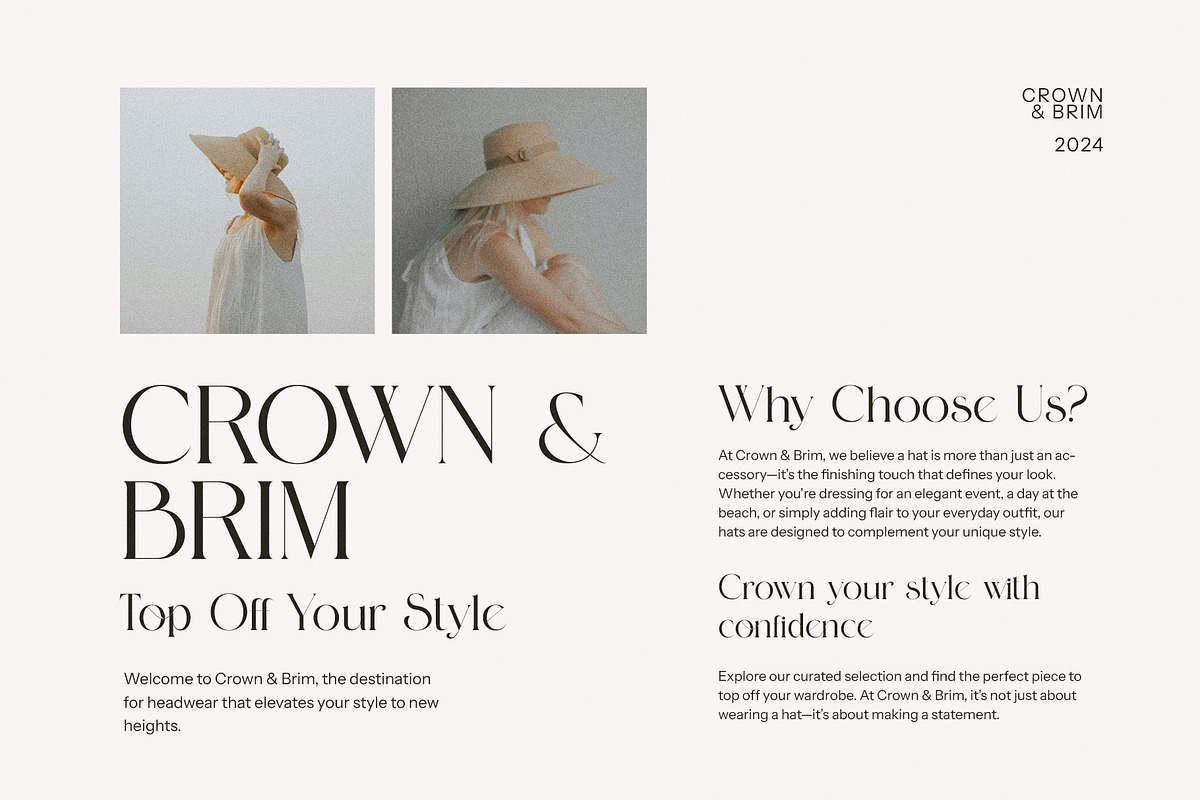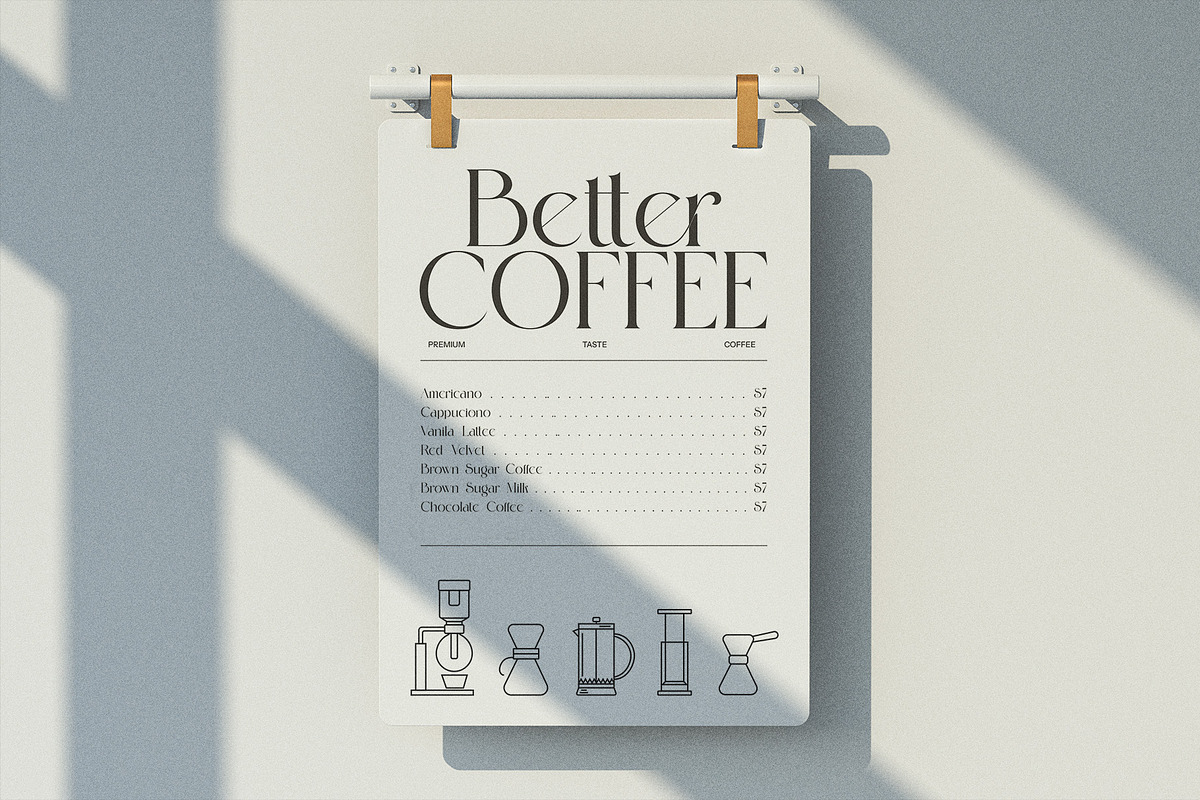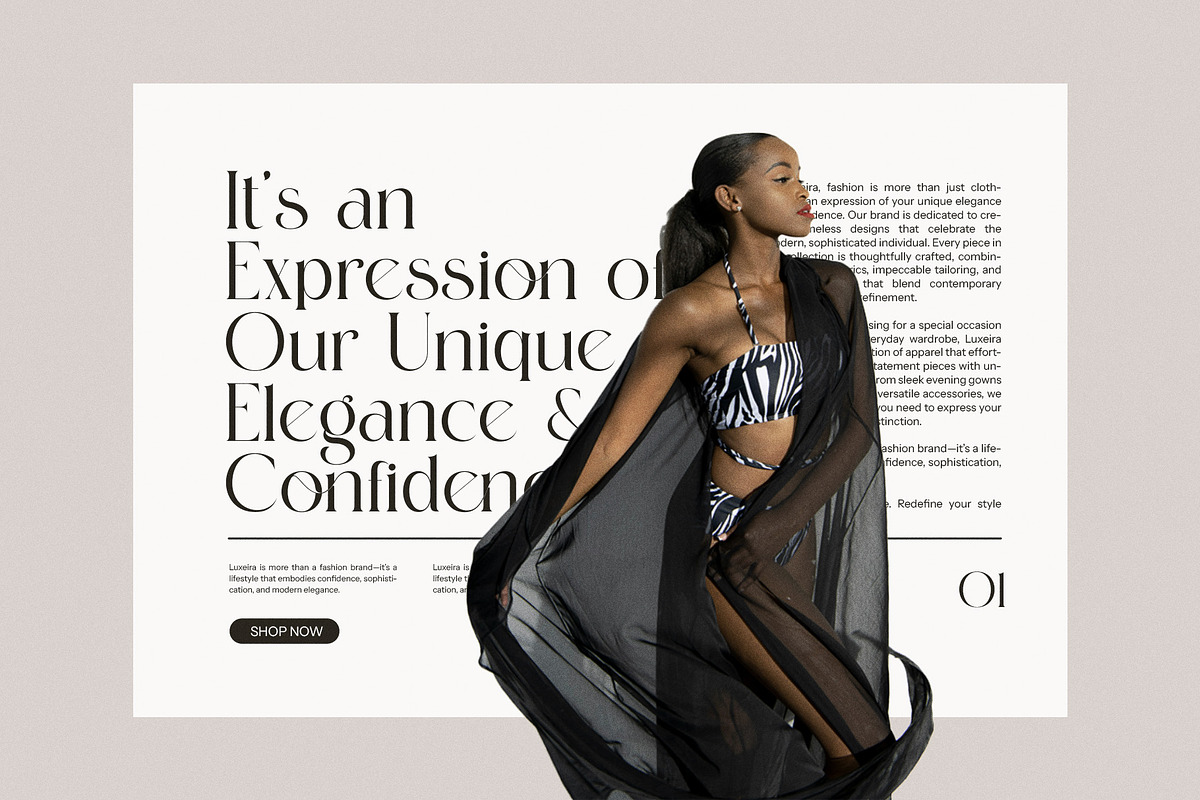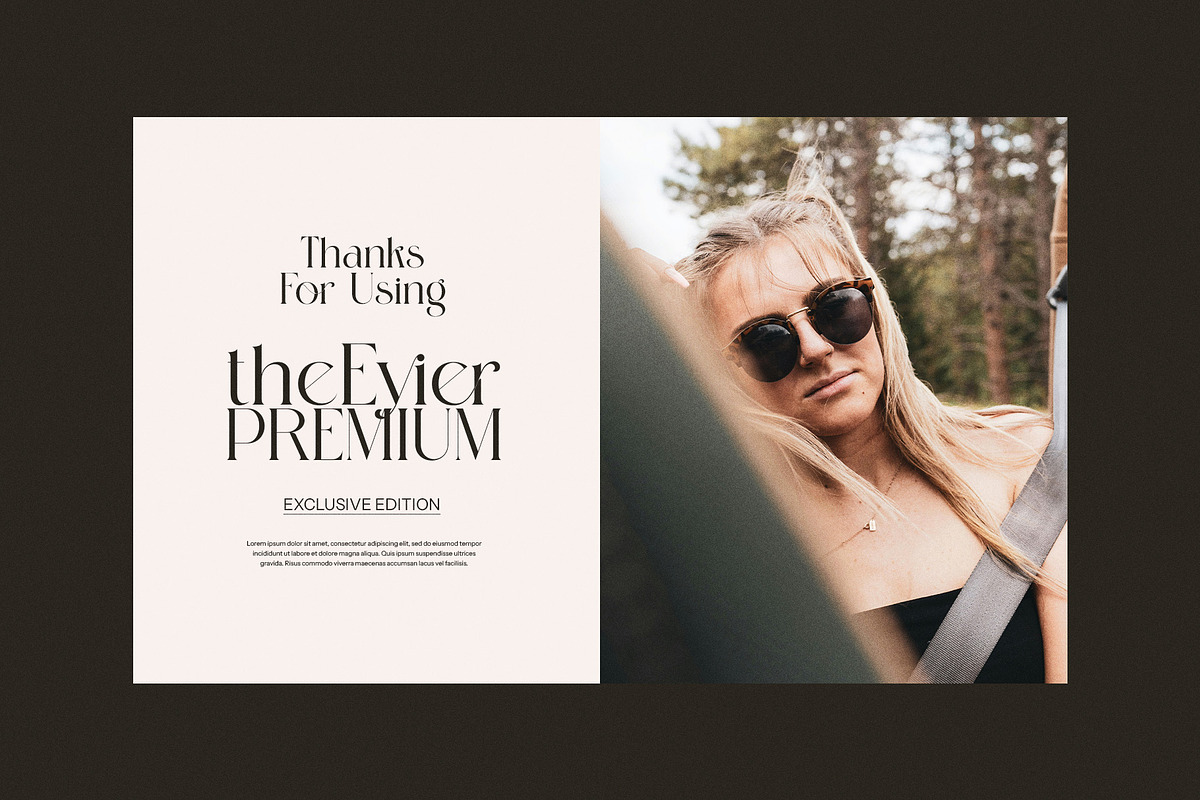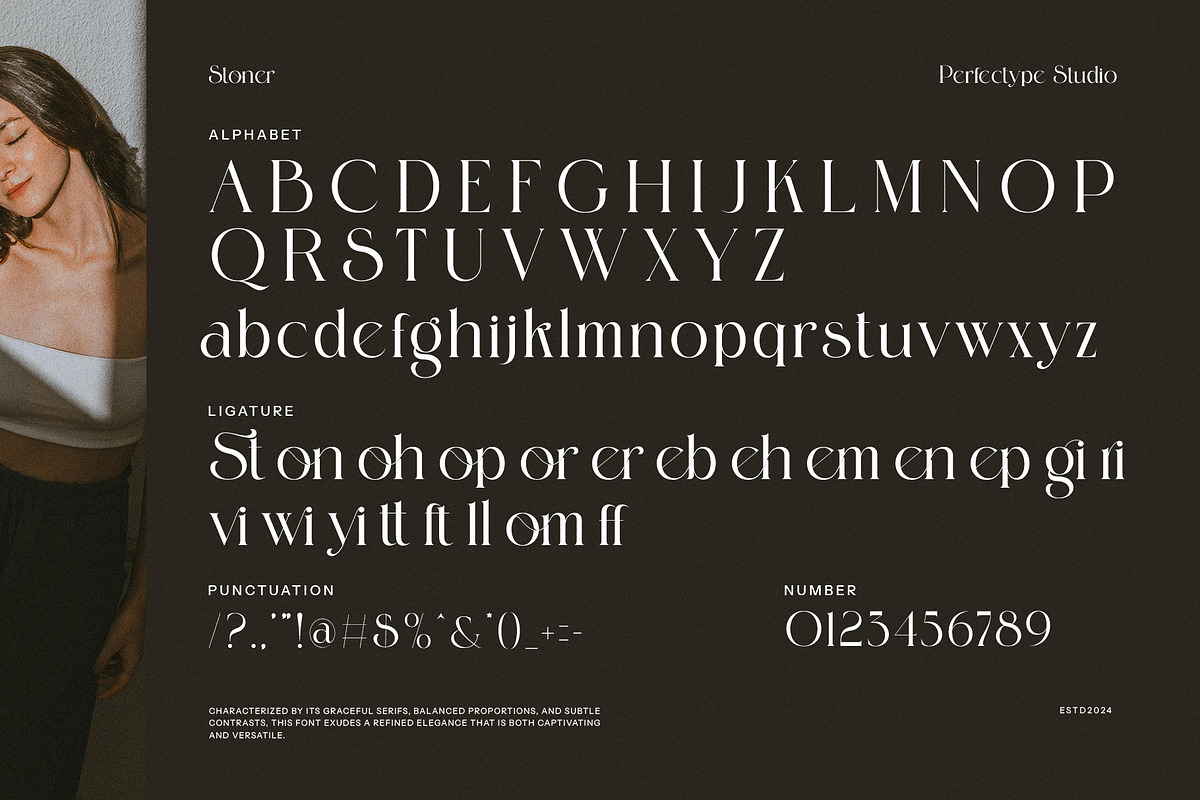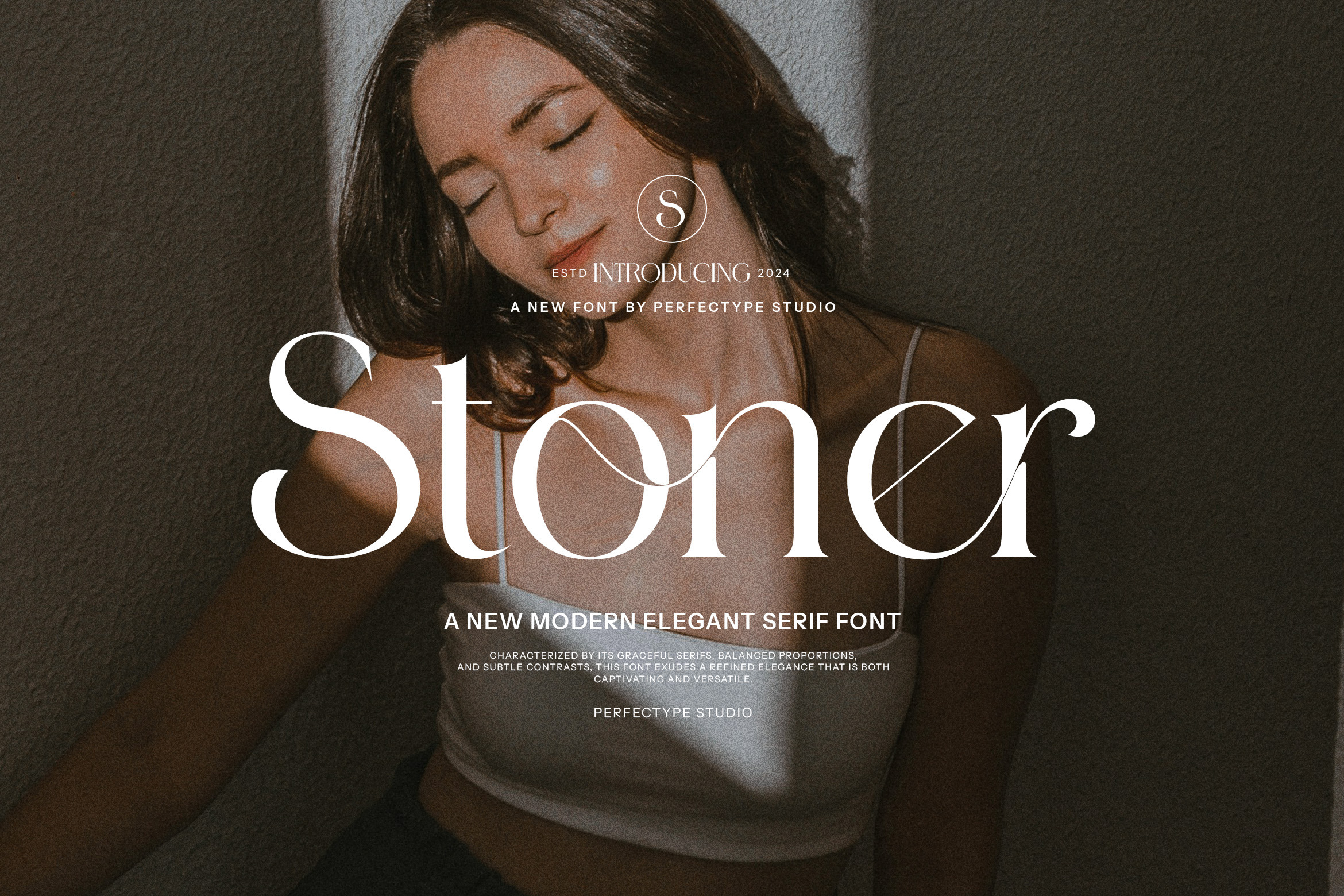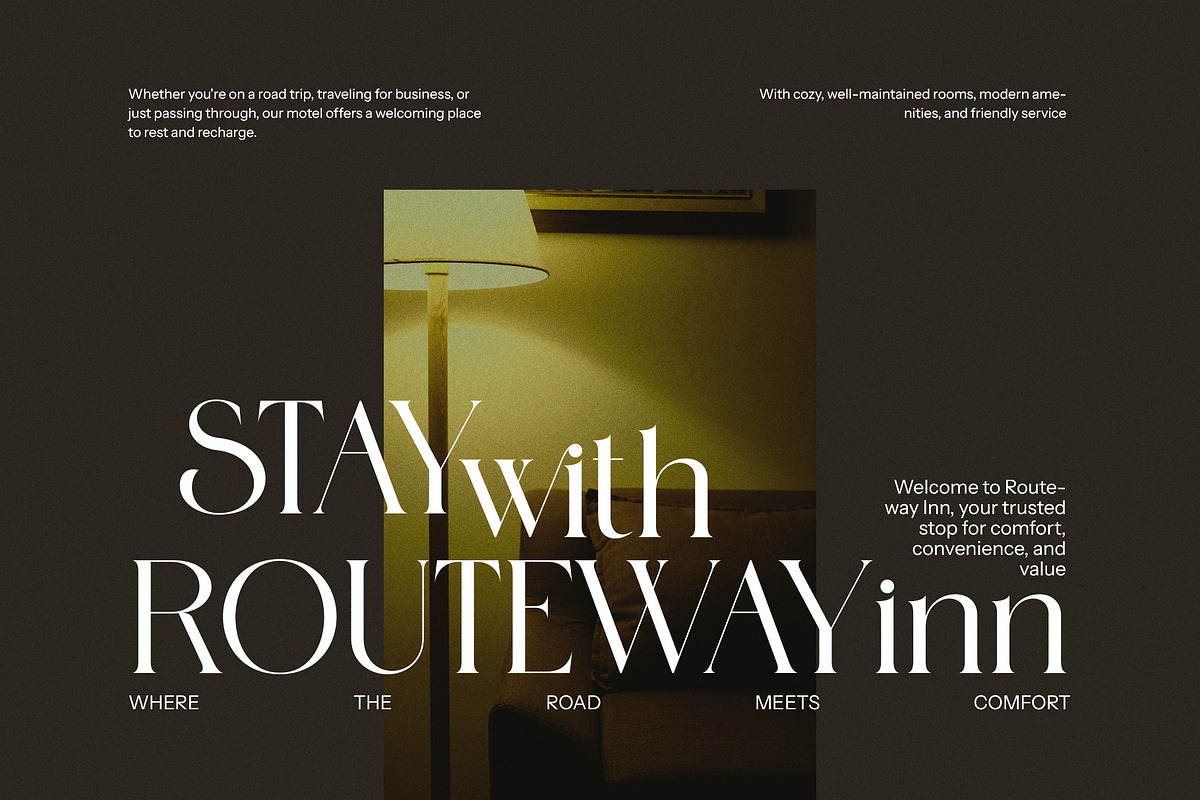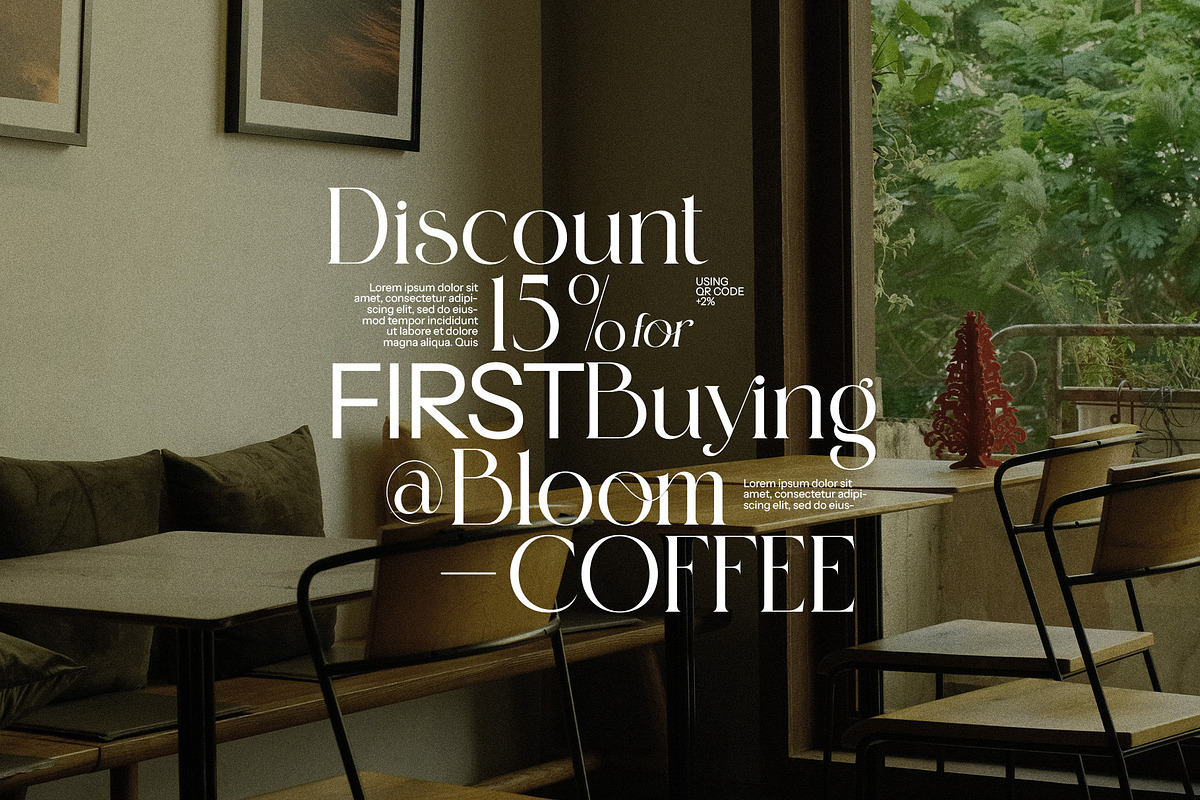
Stoner Modern Serif Font
Introducing Stoner Modern Serif Font—a captivating typeface that embodies the perfect fusion of elegance and contemporary design. With its refined serif details and clean lines, Stoner is tailored for those who appreciate sophistication without sacrificing modernity. Each character is meticulously crafted, showcasing a balance between traditional serif influences and a fresh, innovative style that breathes new life into typography.
At the heart of Stoner’s charm lies its stunning ligature feature. These thoughtfully designed ligatures create seamless connections between letters, transforming standard text into a fluid, artistic expression. This unique characteristic not only enhances visual appeal but also adds a touch of refinement, ensuring that your typography is as engaging as it is readable. Stoner invites you to explore creative possibilities, allowing for a harmonious flow that captivates audiences and elevates your design projects.
Versatility is one of Stoner’s standout qualities. It excels across a wide range of applications, making it an ideal choice for logo creation, branding endeavors, magazine layouts, product packaging, and eye-catching advertising. Whether you’re crafting a sleek and modern brand identity or designing a sophisticated editorial spread, Stoner adapts effortlessly to your creative vision. Its elegant serifs convey a sense of professionalism, while the modern elements keep it relevant and striking, ensuring your work resonates with contemporary audiences.
Beyond its aesthetic qualities, Stoner is designed for practicality. Its clear, legible characters maintain their impact at various sizes, making it suitable for both bold headlines and detailed body text. This ensures that your message is communicated effectively, whether in print or on digital platforms. The font’s comprehensive character set further enhances its usability, accommodating multilingual projects and a diverse range of creative expressions.
Embrace the artistry of Stoner Modern Serif Font and unlock the potential of your designs. With each stroke, you’ll find the opportunity to craft narratives that are both compelling and visually stunning. Let Stoner be your partner in creating unforgettable branding and design experiences that leave a lasting impression. Whether you’re launching a new product, designing a captivating magazine cover, or rebranding an established company, Stoner offers the elegance and modernity needed to elevate your work to new heights.